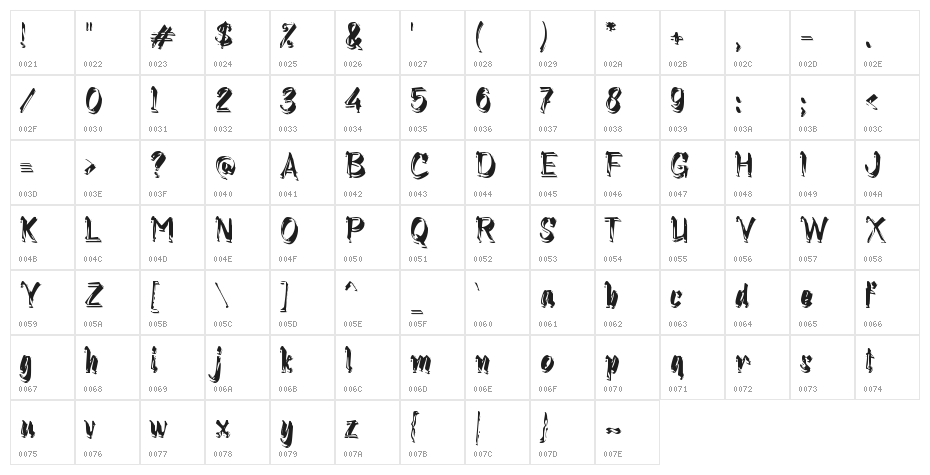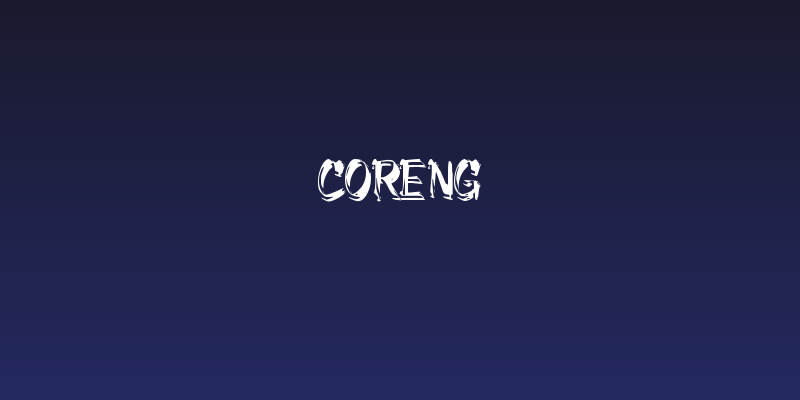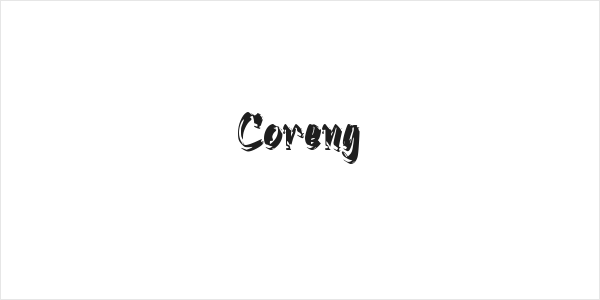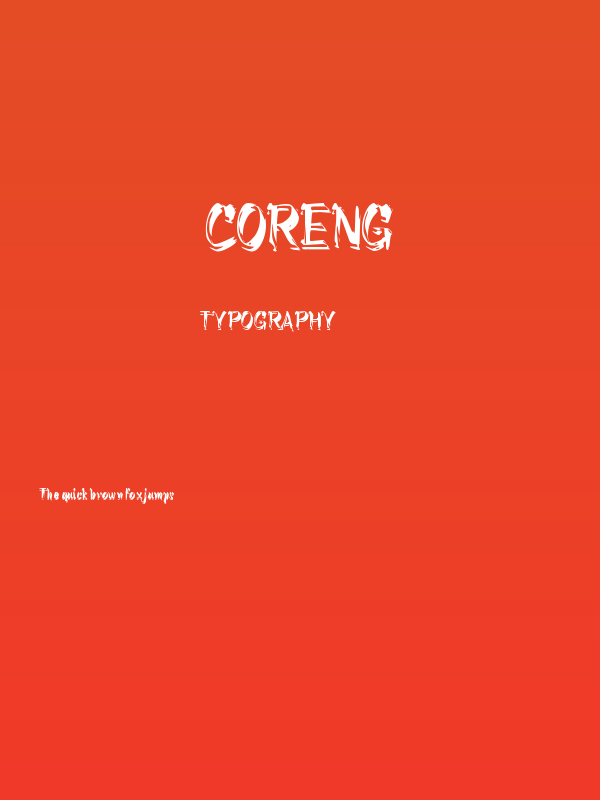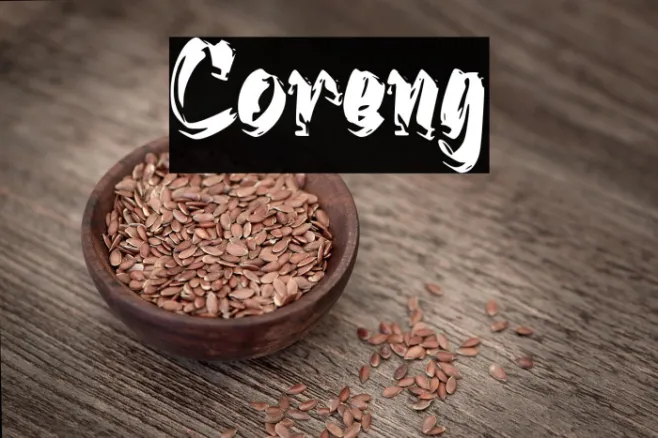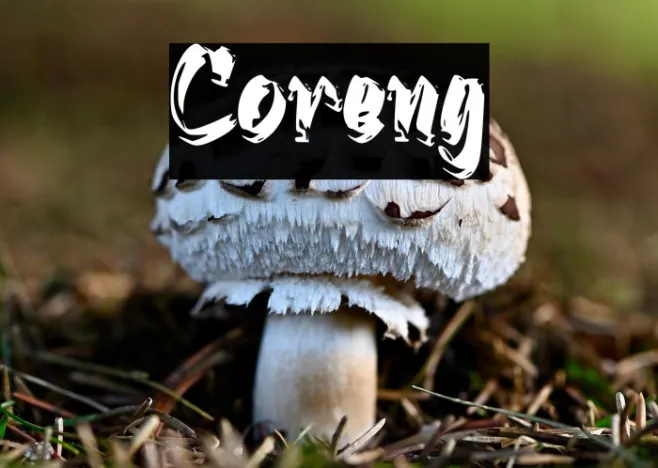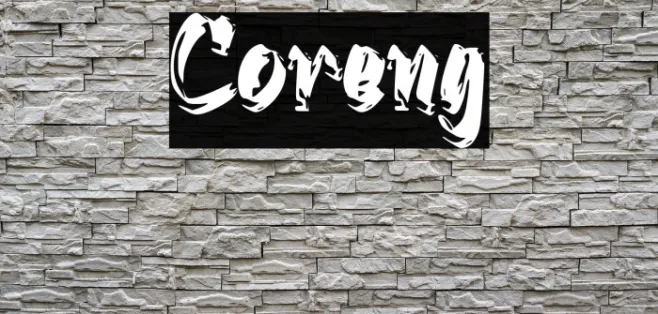
Coreng Font
Coreng Description
This font features a bold, expressive style with a brush-like appearance, giving it a dynamic and energetic feel. The characters are crafted with irregular strokes, creating a sense of movement and spontaneity. The uppercase and lowercase letters maintain a consistent style, with sharp edges and varying thicknesses that add to the font's dramatic flair. The numbers and special characters are equally bold, ensuring a cohesive look across all text elements. This font's unique design makes it stand out, making it ideal for projects that require a strong visual impact.
| Proposed Projects | Ideal for posters, album covers, branding, and any project needing a bold, artistic touch. |